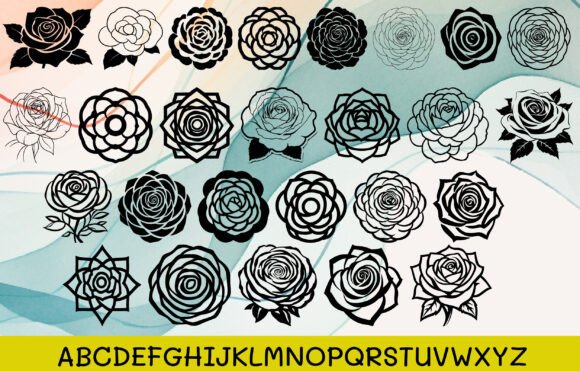
Introduction to Happy Rose Font
Happy Rose Dingbats Fonts.
Featuring 26 unique star-inspired rose designs, each corresponding to a letter from A to Z, this set is perfect for adding a floral charm Includes both OTF and TTF file formats, ideal for crafting, decorating, and creative projects.